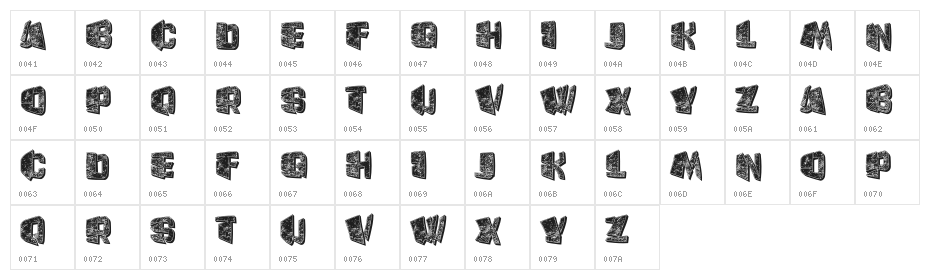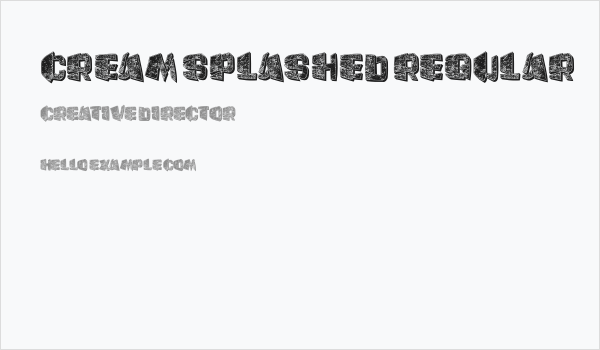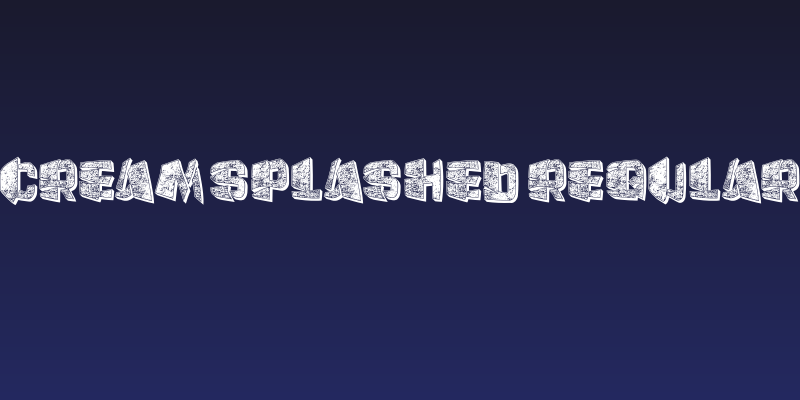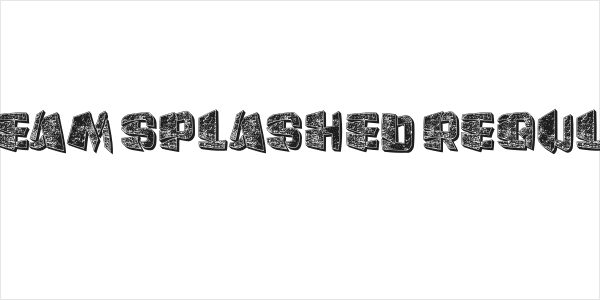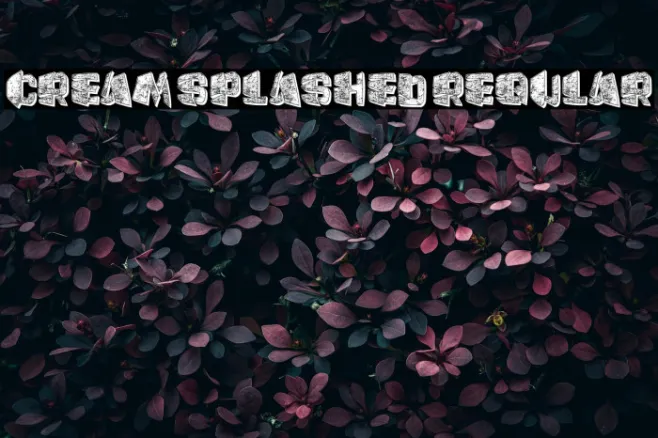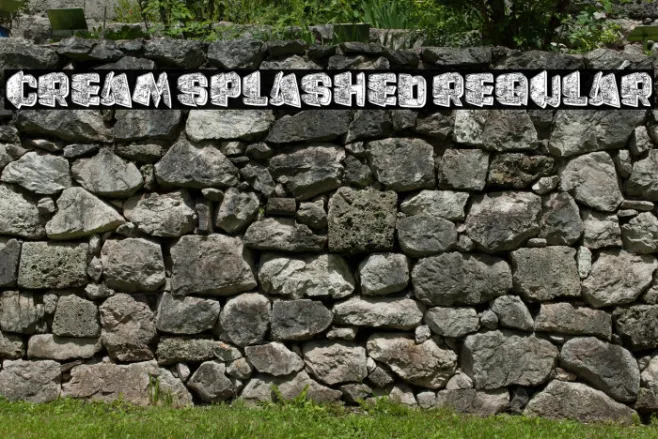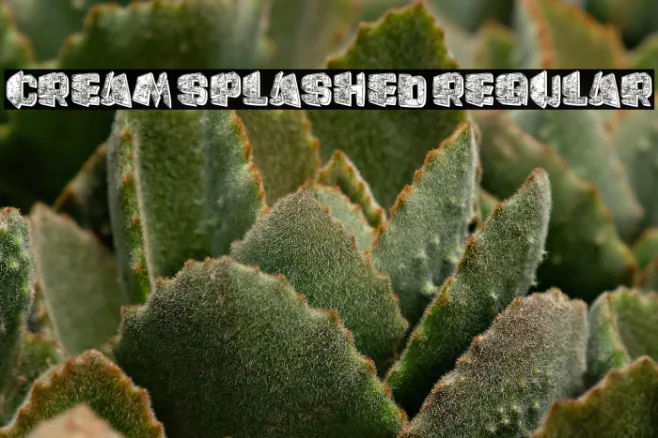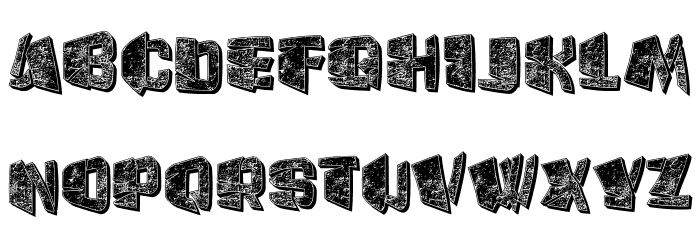
Cream Splashed Regular Font
Cream Splashed Regular Description
This font features a bold, textured design with a distressed, splattered effect that gives it a rugged and artistic appearance. The characters are uppercase only, with a consistent width and height, creating a uniform look across the text. The texture within each letter resembles a splash or splatter of paint, adding a dynamic and energetic feel. The edges of the letters are sharp and angular, contributing to a modern and edgy style. This font is ideal for projects that require a strong visual impact and a touch of creativity, such as posters, album covers, or branding materials that aim to stand out.
| Proposed Projects | Ideal for posters, album covers, branding materials, and any project needing a strong visual impact. |